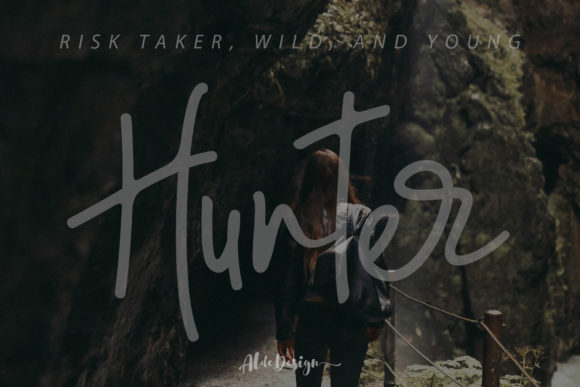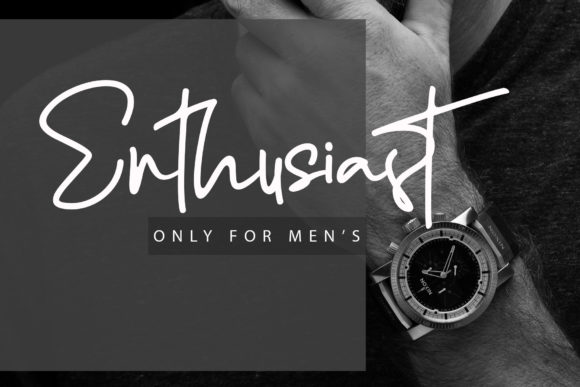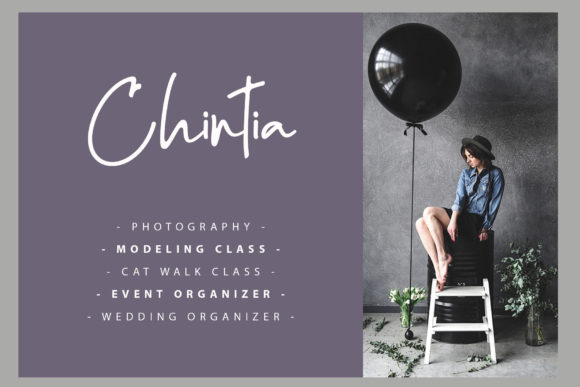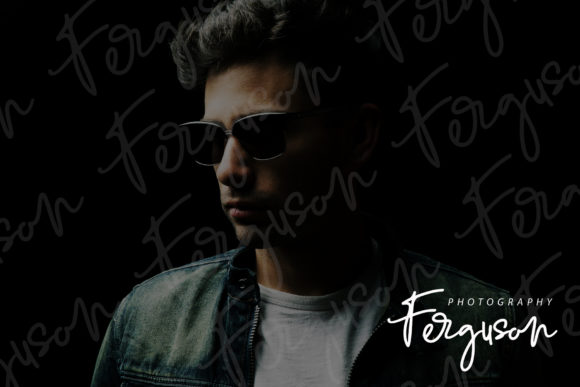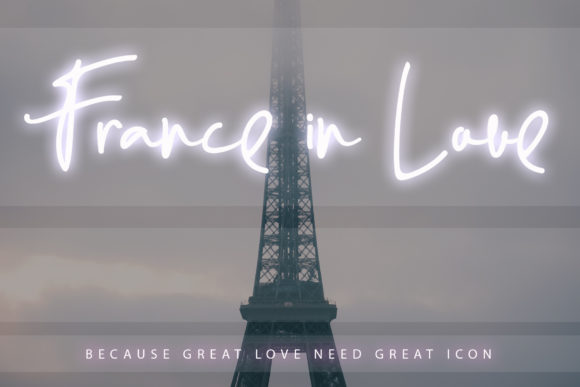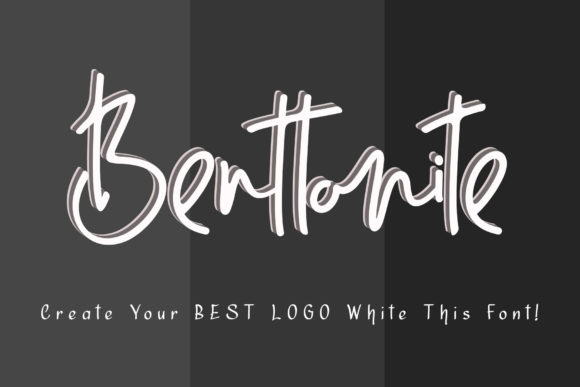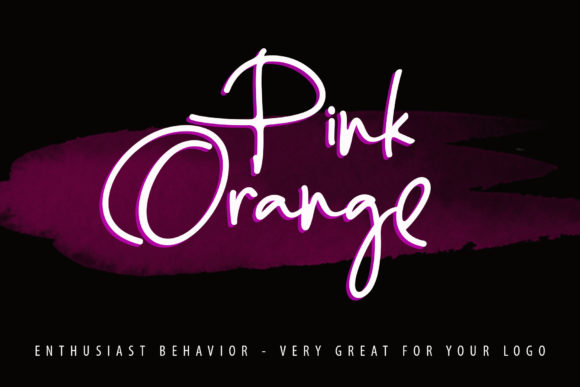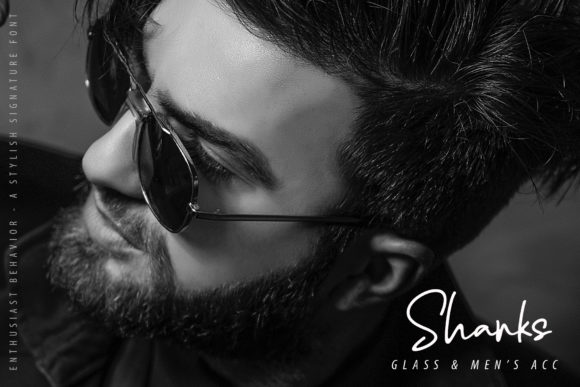
Enthusiast Behavior Font
About Enthusiast Behavior Font
The Enthusiast Behavior is a simple, yet classy typeface. It includes beginning and ending swashes which are perfect for adding a stylish and elegant look to your designs.
It can be used for watermarks, photography, signatures, logos, album covers, business cards, quotes, and many other design projects.